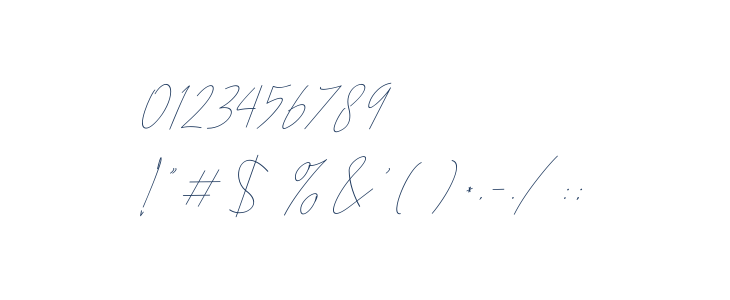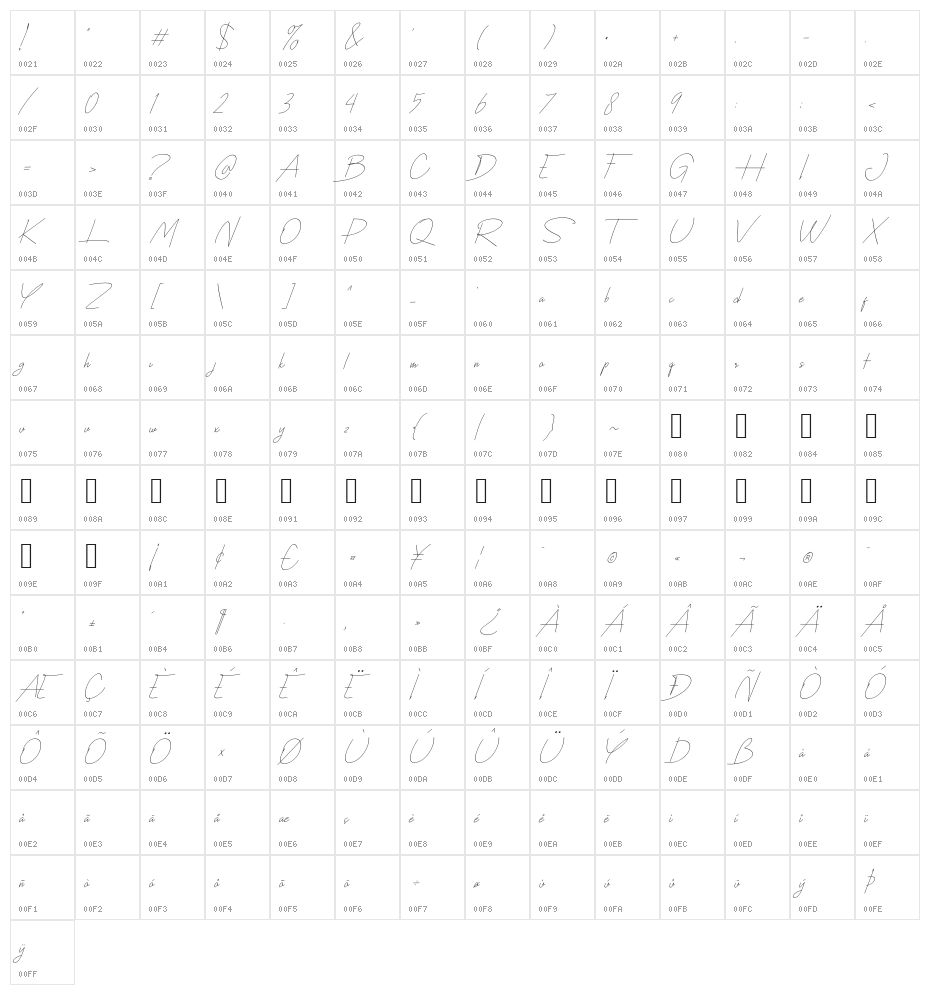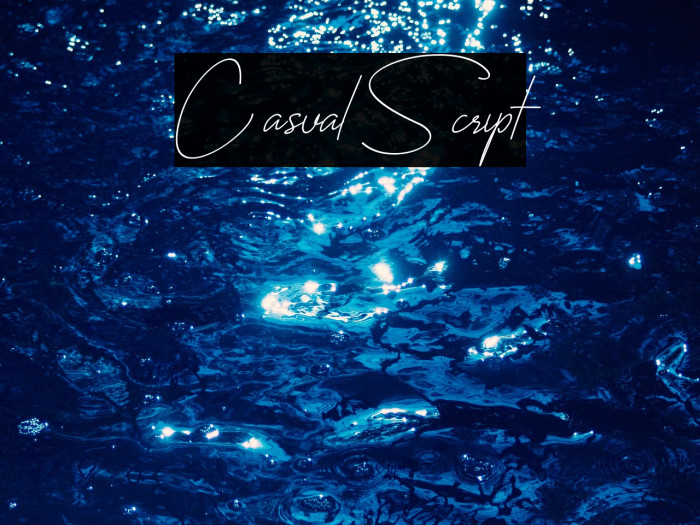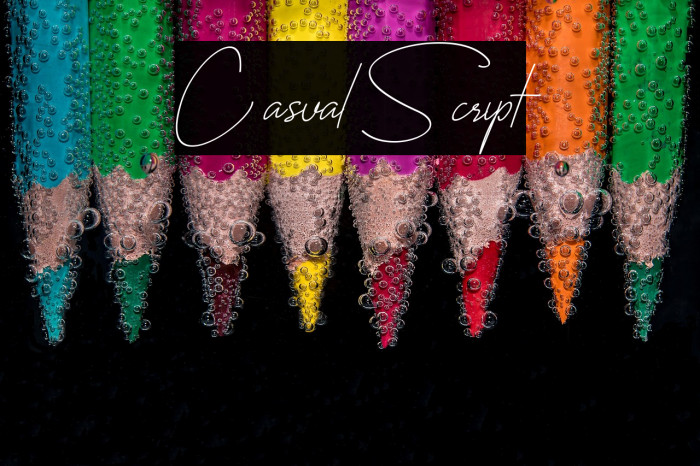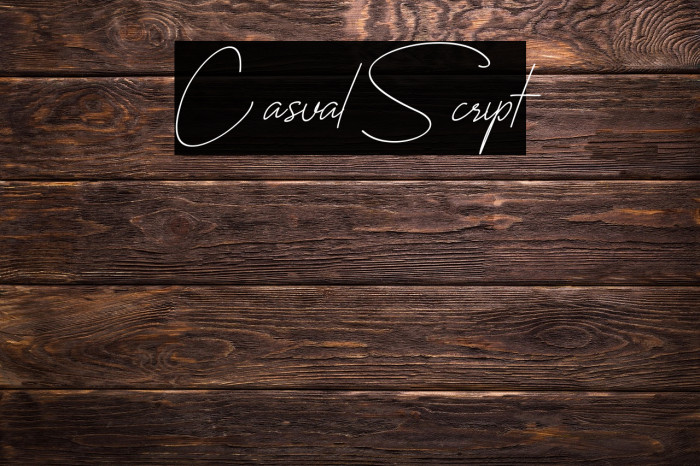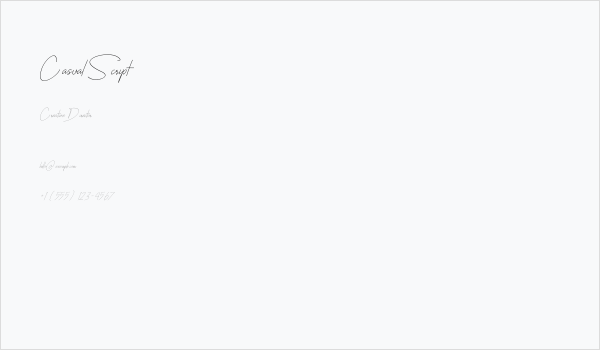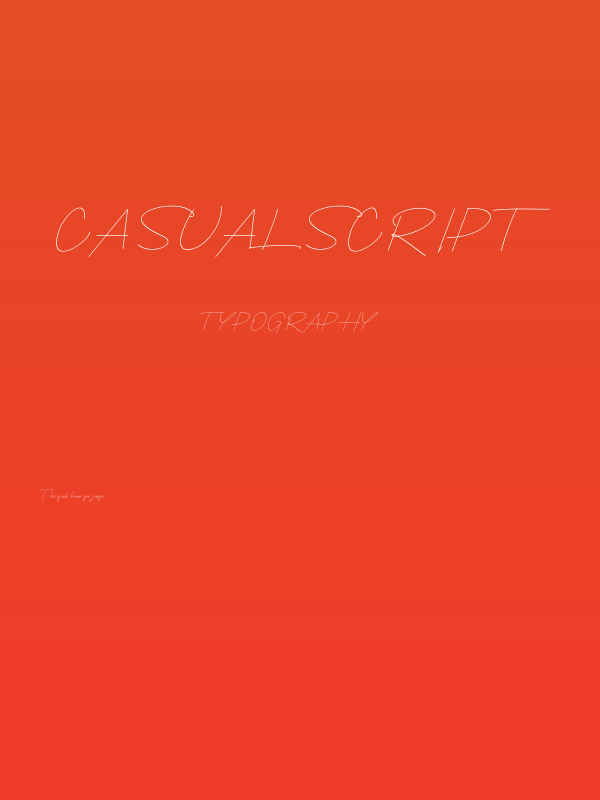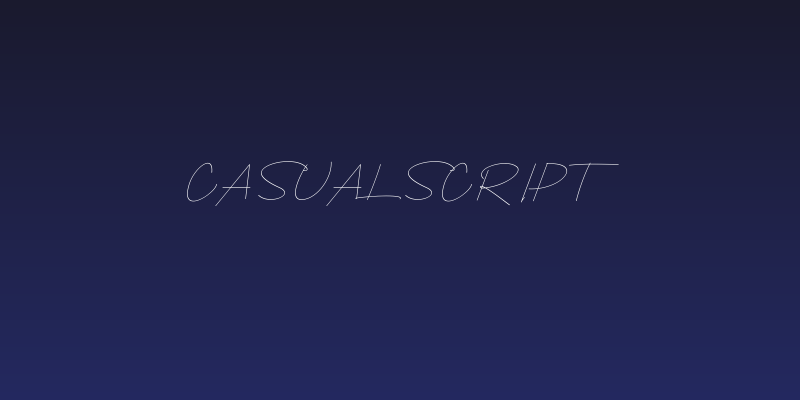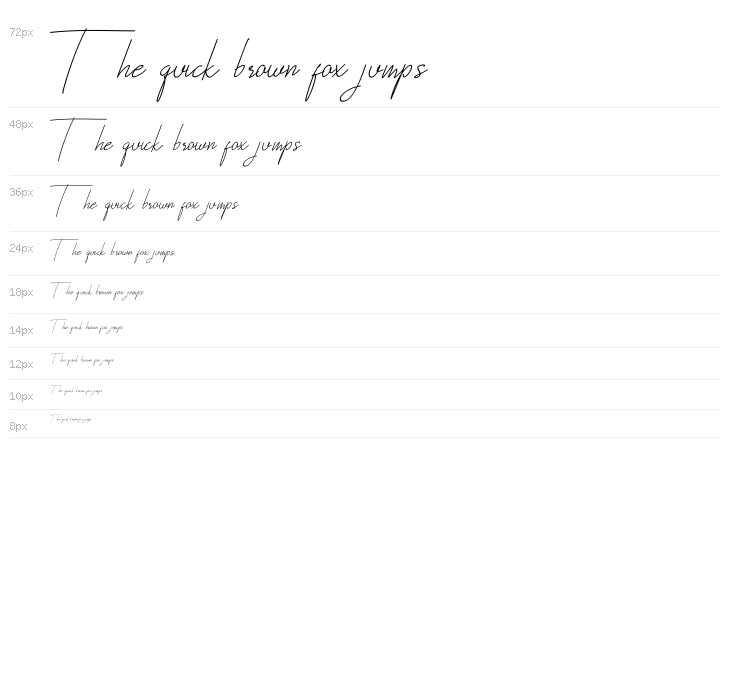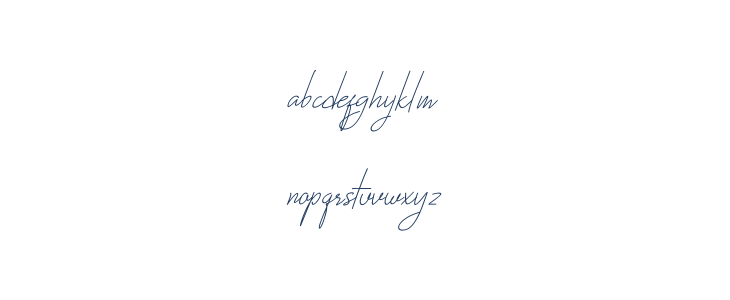
CasualScript Font
CasualScript Description
This font exudes a casual and handwritten style, characterized by its flowing and slightly irregular strokes that mimic natural handwriting. The uppercase letters are tall and slender, with a slight slant that adds to the informal feel. The lowercase letters are more compact, maintaining the same slant and fluidity, which enhances the overall cohesive appearance. Numbers are consistent with the alphabet, featuring the same thin lines and casual flair. Special characters are integrated seamlessly, maintaining the handwritten aesthetic. This font is perfect for projects that require a personal touch, such as invitations, greeting cards, or informal branding.
| Use Case | Logos, Invitations, Greeting cards |
| Proposed Projects | Ideal for invitations, greeting cards, personal branding, and informal designs. |